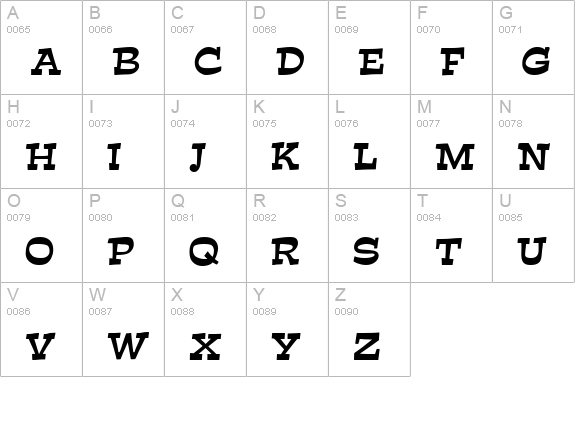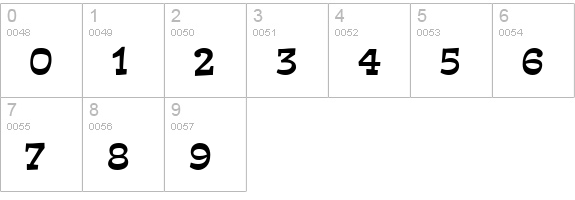
Estro MN Font Details
Estro MN is a modern and stylish font that exudes sophistication and elegance. With its sleek lines and contemporary aesthetic, this font is perfect for a wide range of design projects, from branding to editorial design. The clean and minimalistic design of Estro MN makes it versatile and easy to read, ensuring that your message comes across clearly and effectively. What sets Estro MN apart is that it is available for free download at FontsMarket.com. This means that you can easily access this beautiful font without any cost, making it a valuable addition to your font library. Whether you're working on a personal project or a professional assignment, Estro MN is sure to elevate your designs and make a lasting impression. Download Estro MN today and see the difference it can make in your creative projects.